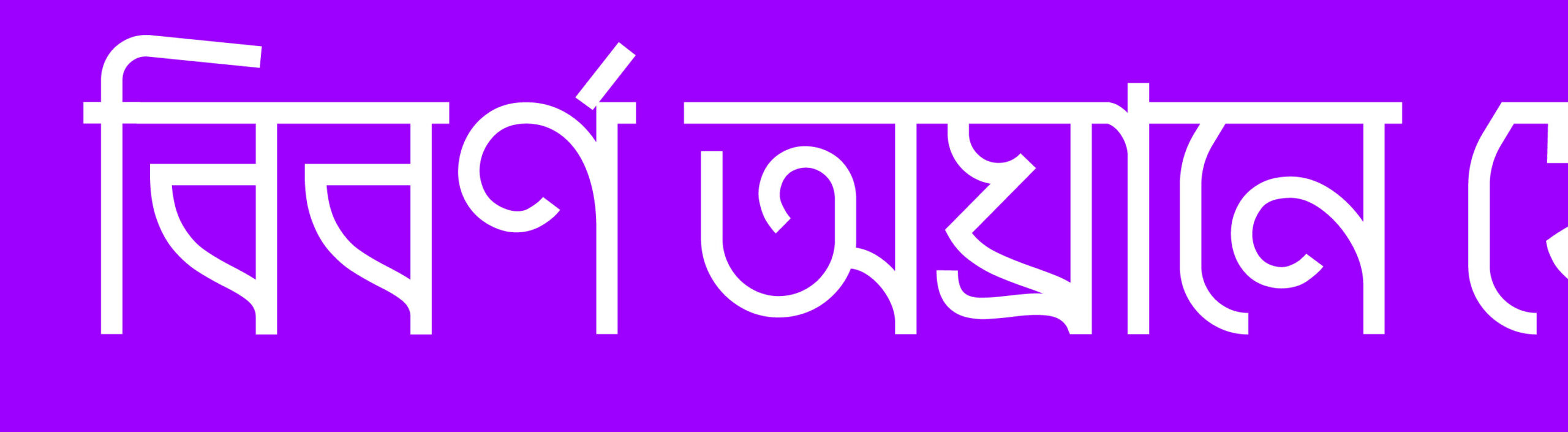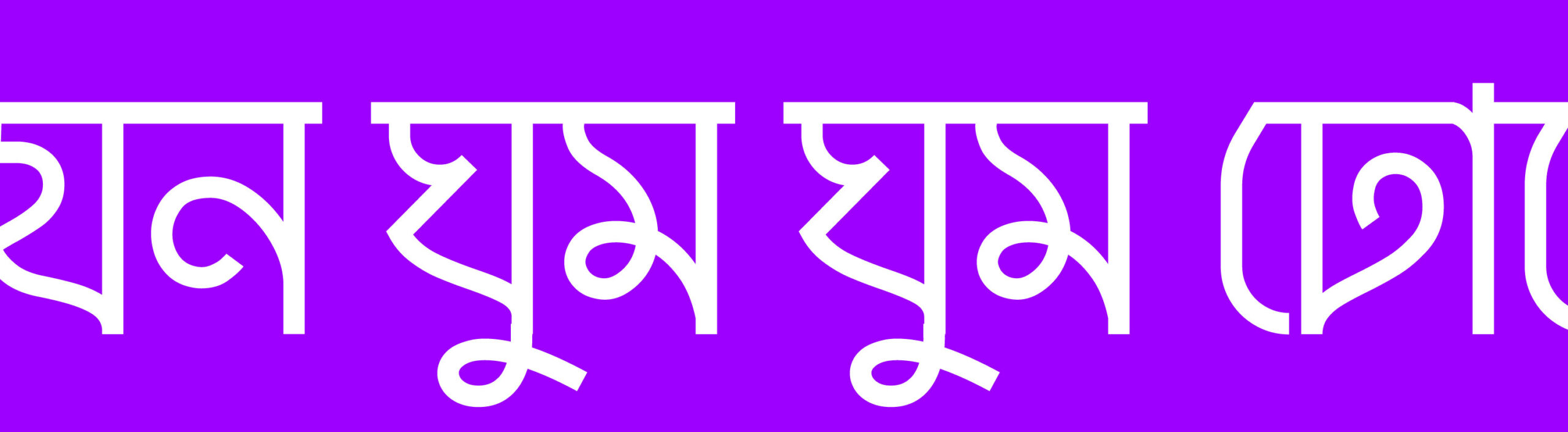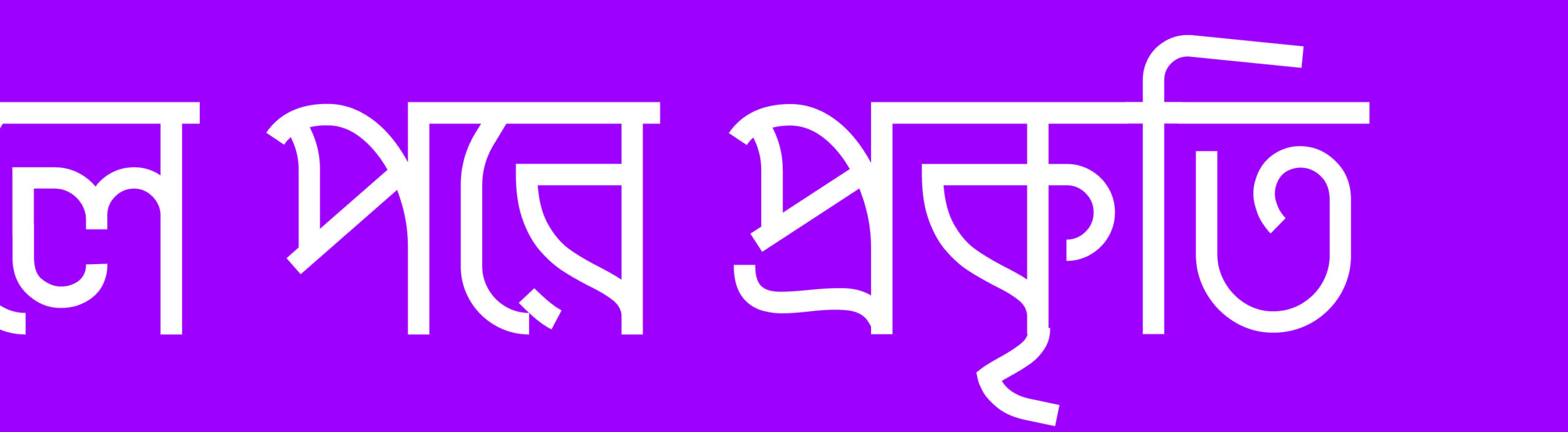
Agrahayan
Designer
Kazi Jubair Mahmud
Agrahayan Typeface captures the quiet elegance of late autumn with a slim, vertically stretched design. It balances rounded curves and geometric boxes to create warmth and structure, guiding the eye smoothly across text. Designed for readability and rhythm, it suits body text in editorial, digital, or cultural content. Its thin strokes and elongated forms give a refined, open feel, allowing text to breathe even in dense layouts. Agrahayan speaks in measured tones, avoiding visual clutter while maintaining character. The typeface’s flowing movement enhances natural reading, making it both functional and graceful. Like the month it’s named after, Agrahayan reflects calm productivity and subtle transitions. It is not loud or flashy but offers quiet strength and steady flow, serving content with elegance and clarity.
Classifications
Script
Type Engineer
Kazi Sayeed Mahmud
Publisher
Lipikola Type Foundry
Agrahayan
Designer
Kazi Jubair Mahmud
Agrahayan Typeface captures the quiet elegance of late autumn with a slim, vertically stretched design. It balances rounded curves and geometric boxes to create warmth and structure, guiding the eye smoothly across text. Designed for readability and rhythm, it suits body text in editorial, digital, or cultural content. Its thin strokes and elongated forms give a refined, open feel, allowing text to breathe even in dense layouts. Agrahayan speaks in measured tones, avoiding visual clutter while maintaining character. The typeface’s flowing movement enhances natural reading, making it both functional and graceful. Like the month it’s named after, Agrahayan reflects calm productivity and subtle transitions. It is not loud or flashy but offers quiet strength and steady flow, serving content with elegance and clarity.